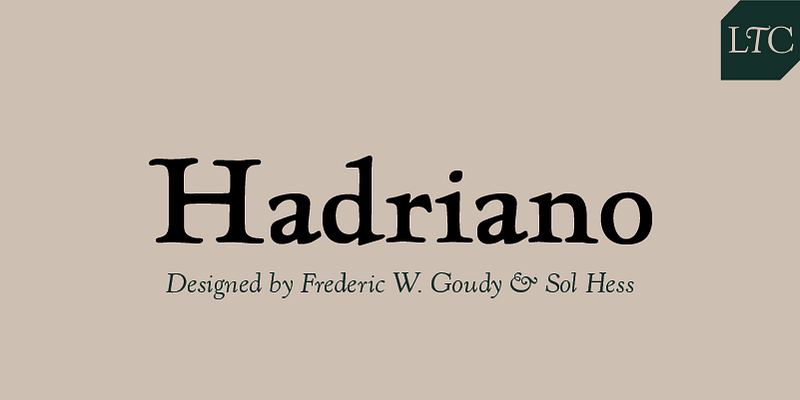
LTC Hadriano Pro Font Free Download is a classic serif typeface designed for elegance and readability. Combining traditional features with a contemporary touch, it is perfect for projects that require a sophisticated, yet accessible aesthetic. Ideal for high-end branding, editorial layouts, luxury packaging, and other refined design work, this font adds a sense of timeless elegance to your typography.
LTC Hadriano Pro Font Free Download offers a rich contrast between thick and thin strokes, with well-defined serifs that enhance legibility in both print and digital applications. Its carefully balanced proportions and unique letterforms make it suitable for a wide range of design needs, from elegant headlines to intricate body text.
Whether you're designing for a premium brand, creating elegant invitations, or working on a high-profile editorial project, LTC Hadriano Pro brings a level of sophistication and refinement to your typography.